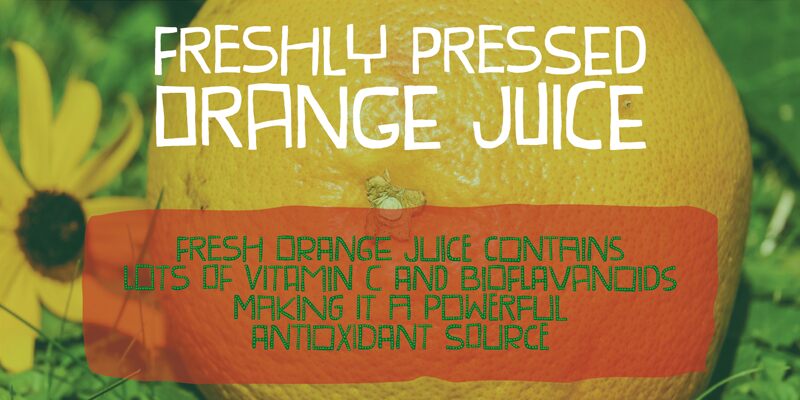
Provokateur, designed by the imaginative Jakob Fischer at pizzadude.dk, presents itself as a striking display font with a semi-light weight that commands attention. The font's aesthetic is both assertive and engaging, featuring distinctive character shapes that convey a sense of dynamism and modern flair. Its carefully crafted letters showcase an edgy personality that's versatile enough for a variety of creative projects.
Whether it's for bold headlines, eye-catching logos, or standout advertising campaigns, Provokateur is poised to add an element of contemporary sophistication to your design work. Its clean lines and unique form make it particularly suitable for industries looking to make a statement while maintaining readability and style.